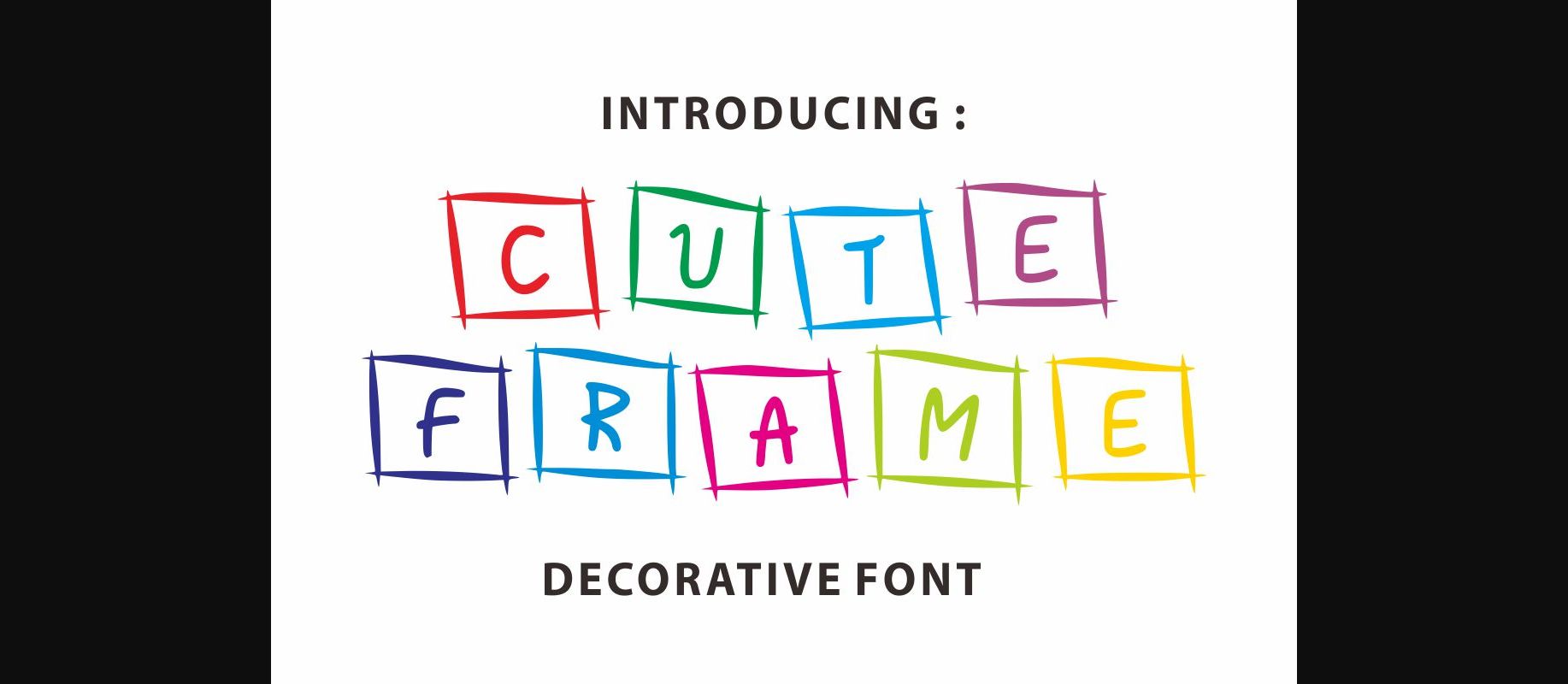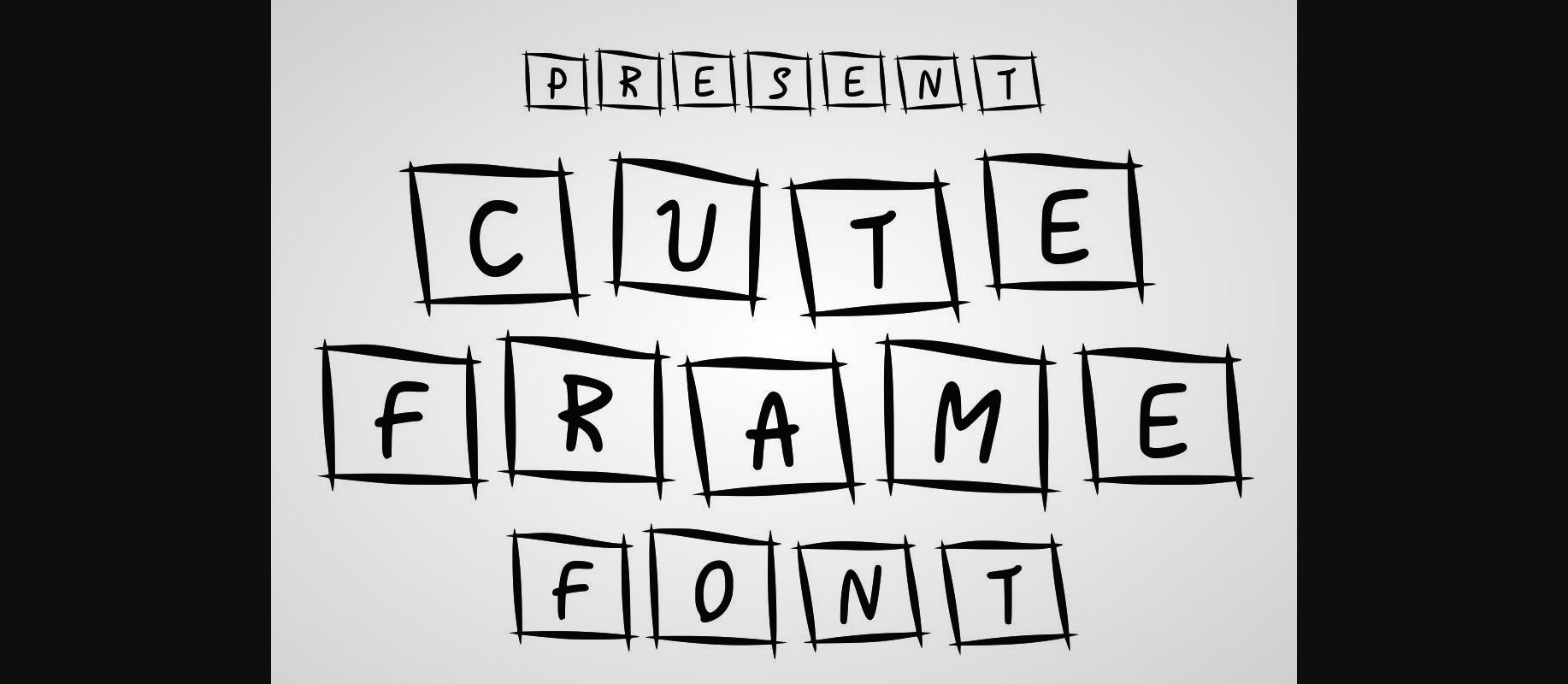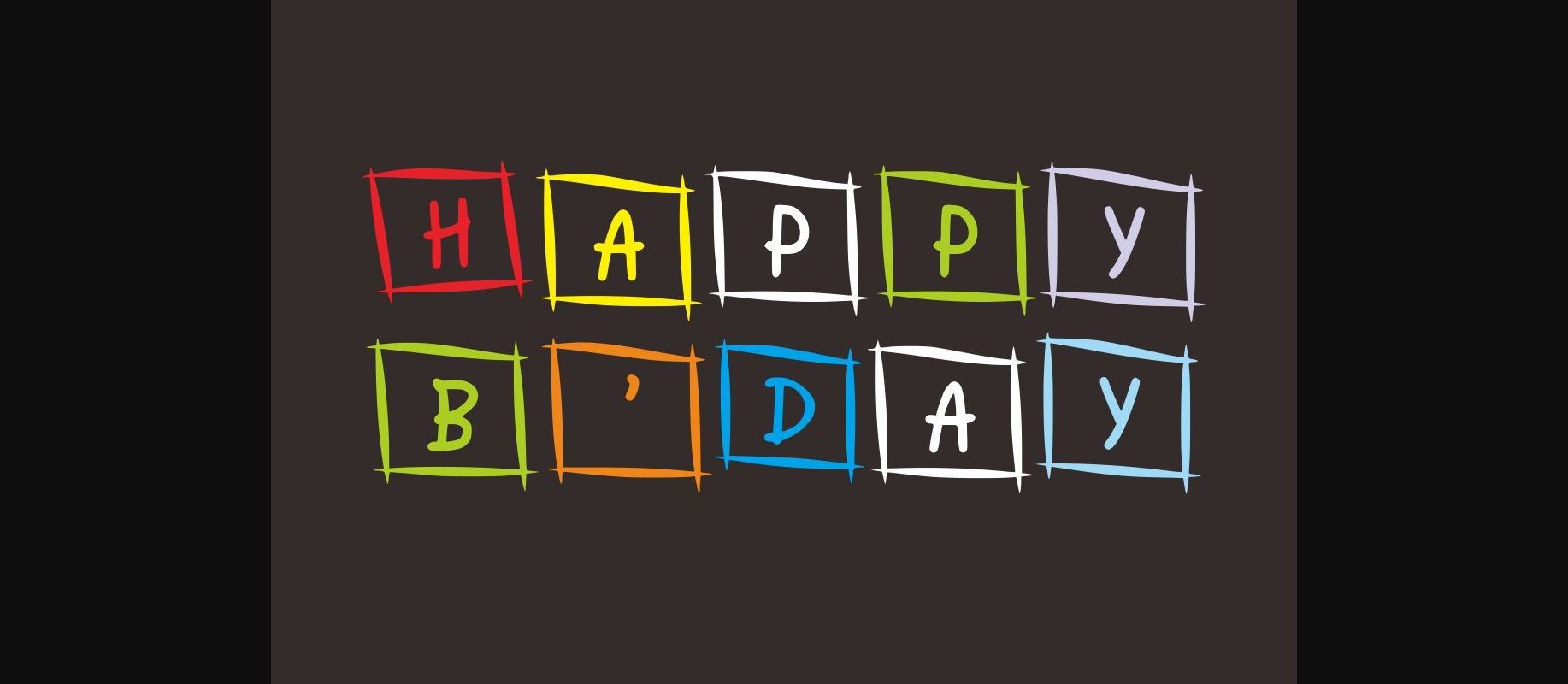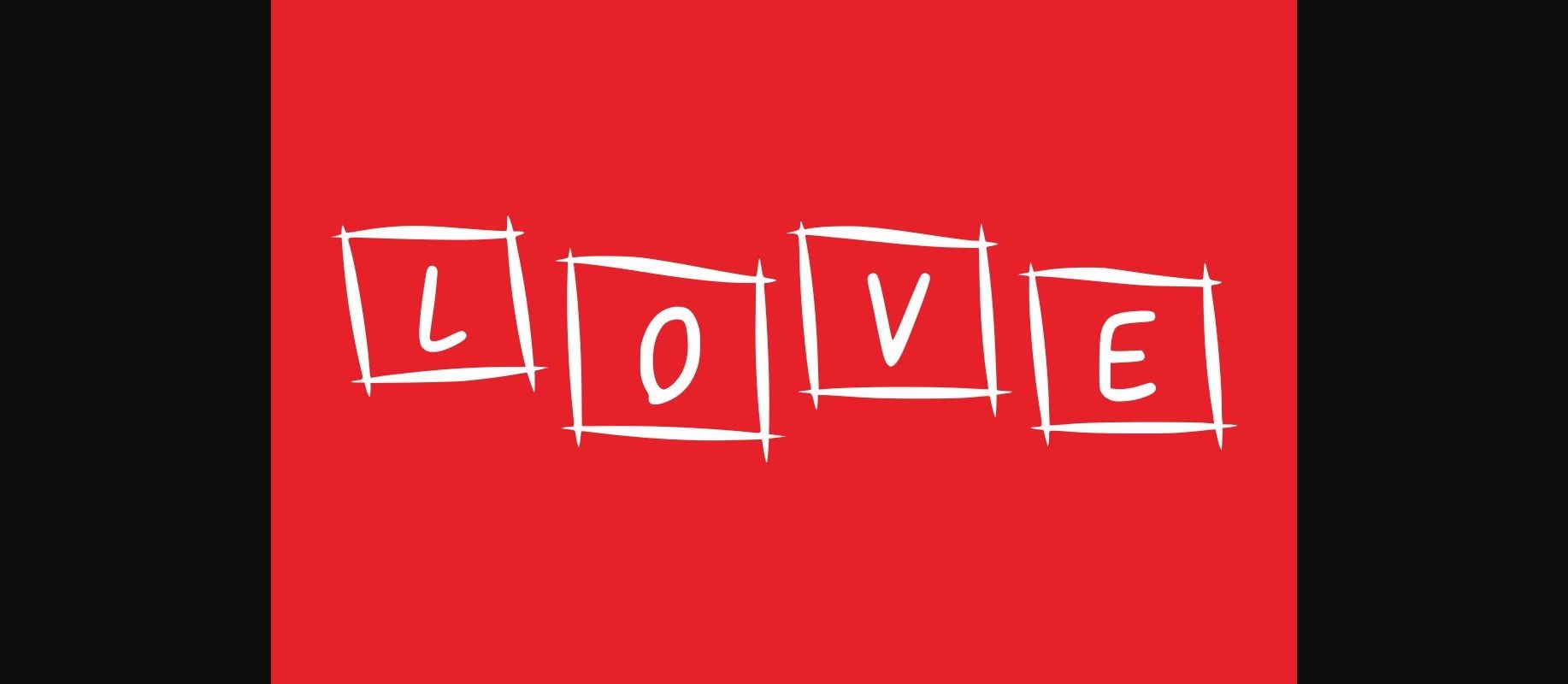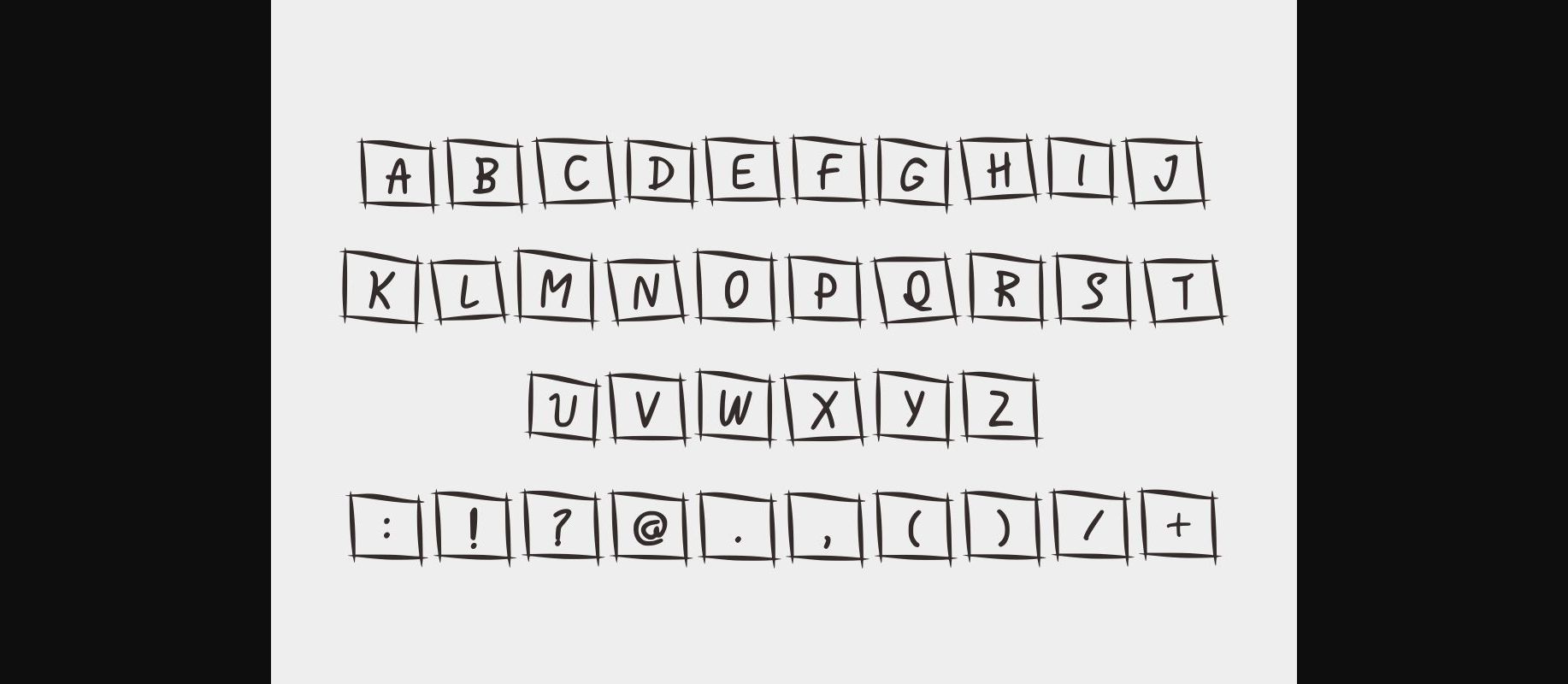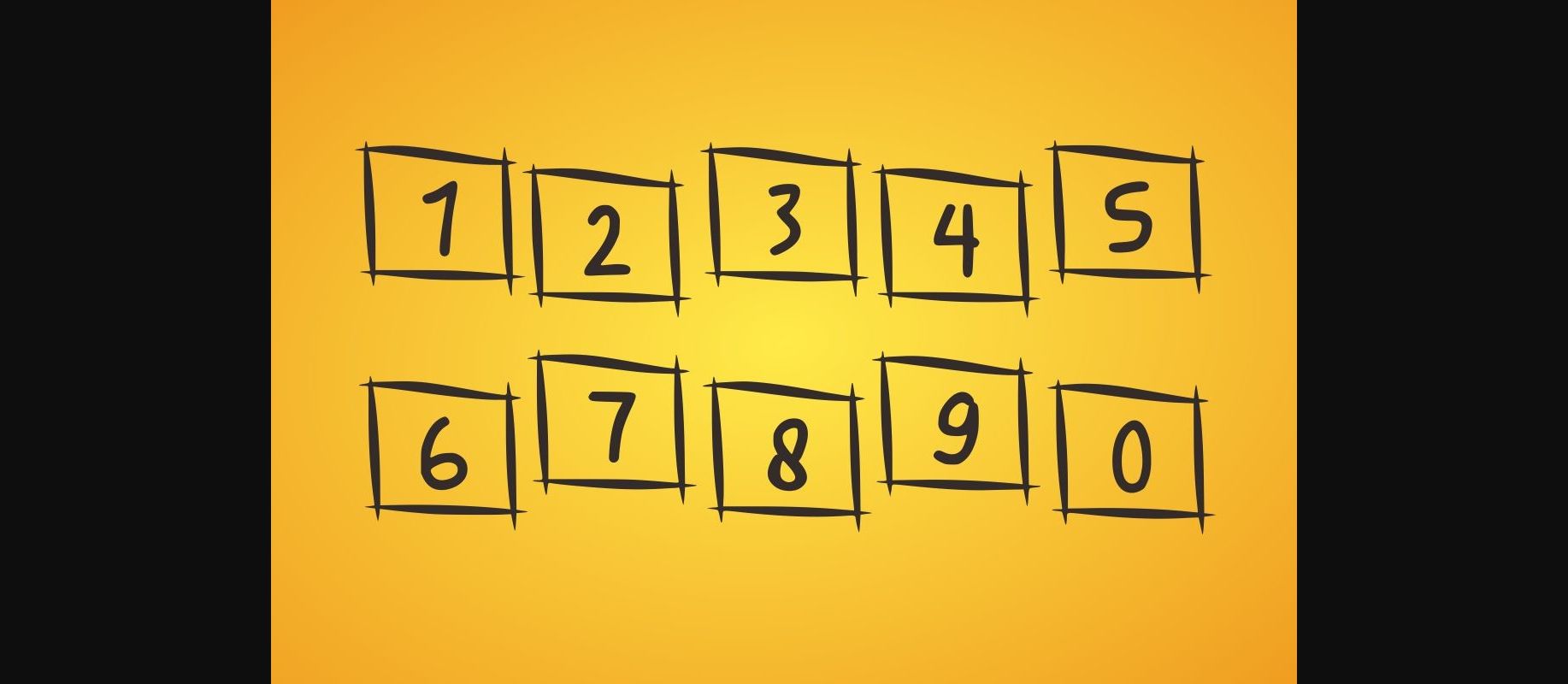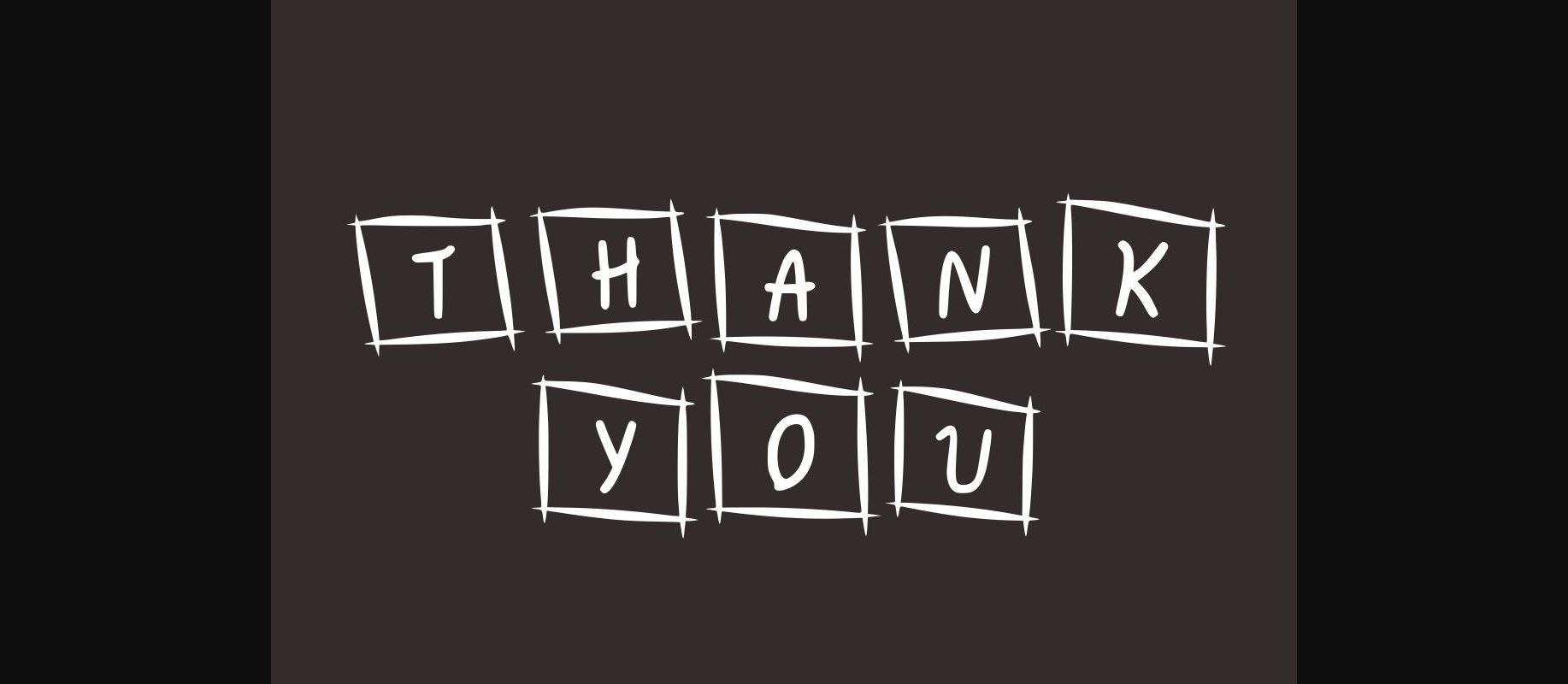
HomeDecorative FontsCute Frame Font Decorative Fonts Cute Frame Font FacebookXPinterestWhatsApp 1 of 9 ... Cute Frame Font Poster 2... Cute Frame Font Poster 3... Cute Frame Font Poster 4... Cute Frame Font Poster 5... Cute Frame Font Poster 6... Cute Frame Font Poster 7... Cute Frame Font Poster 8... Cute Frame Font Poster 9... About Cute Frame Font Cute Frame is a cool and fun decorative font with frames around each letter. Add it to each of your promotion, price tag, party invitation, banner, gathering or pretty much any design that requires a touch of youth and joy. DOWNLOAD NOW People also explored Velvetberries Dad’s Recipe Alevantre Font Diary Indie Font Cat Slave Font Bettra Amluga Font Pansy Bo Brain Font Splaish Font 358 0 TagsCute Frame Font Previous articleLove Story FontNext articleRoover Font LEAVE A REPLY Cancel reply Comment: Please enter your comment! Name:* Please enter your name here Email:* You have entered an incorrect email address! Please enter your email address here Website: Save my name, email, and website in this browser for the next time I comment. Personal Use Free UseYourImagination Personal Use Free Read more about this font Laneway Personal Use Free Read more about this font Mahisya Personal Use Free Read more about this font Loopina Personal Use Free Read more about this font BLOG How to Install and Use Fonts on Windows, macOS, and Web Projects How to Install and Use Fonts on Windows, macOS, and Web Projects Fonts are a crucial part of design and branding. Whether you’re designing a... Fonts That Capture the Spirit of New York City Where to Buy American Fonts Online in 2024 Top 7 Google Fonts Alternatives for Faster and Privacy-Friendly Web Design (2025)